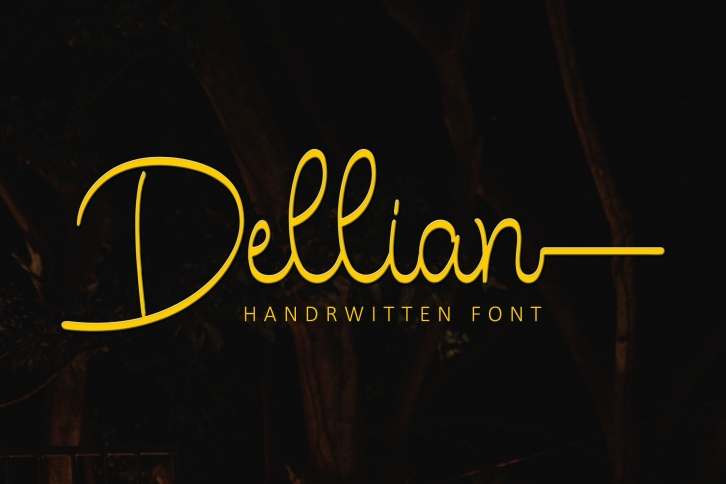
Dellian Handrwitten Font Download
Hello everyone, I want to launch a new font Dellian font Handwritten with a modern script style. This font is made with a brush pen to produce perfect handwriting.
Dellian font can be used for various projects such as stationery invitations, social media, logos, weddings, branding, graphic design to support the project you want to work on.